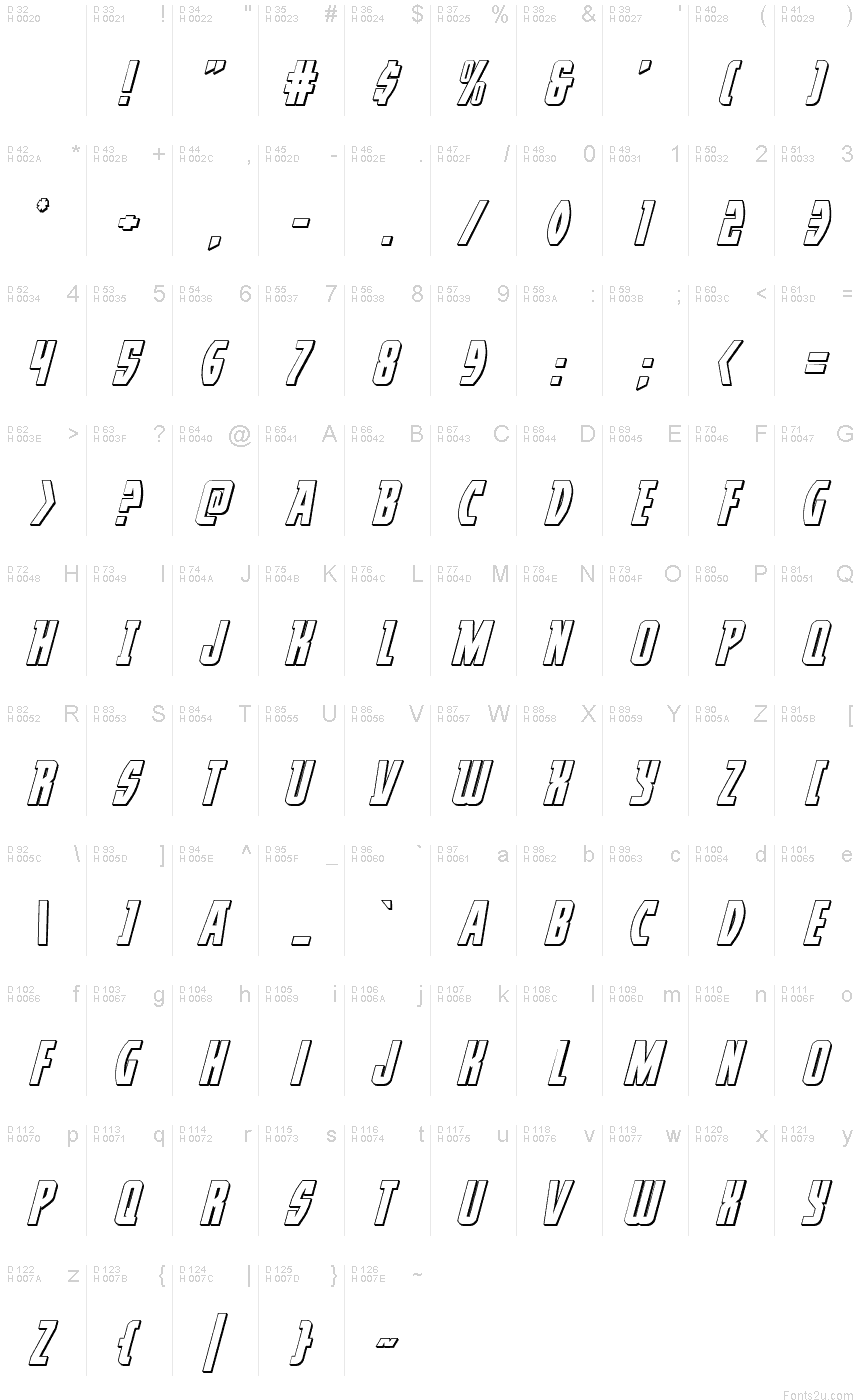
Prowler 3D Italic by Iconian Fonts is a free techno 3D display font from 2011. Its tall, tightly drawn letters lean hard to the right, with sharp joins, broad faces, and an offset edge that gives the forms cut-metal depth.
Motorsport branding and science-fiction game art both suit its speed-focused silhouette, and it can also lend urgency to event posters or sports merchandise. The layered edge echoes vehicle decals, beveled interface panels, and angular illustration, so the lettering can become part of the graphic theme.